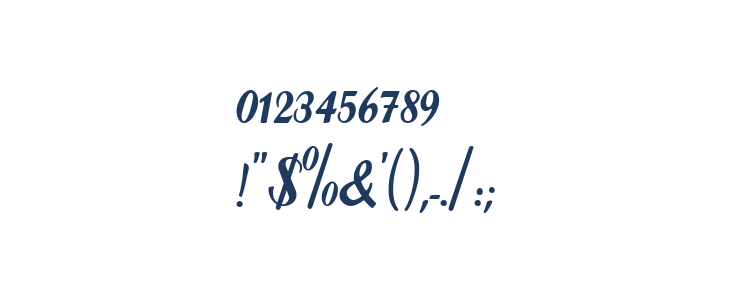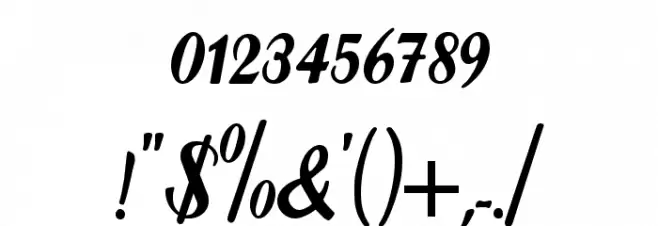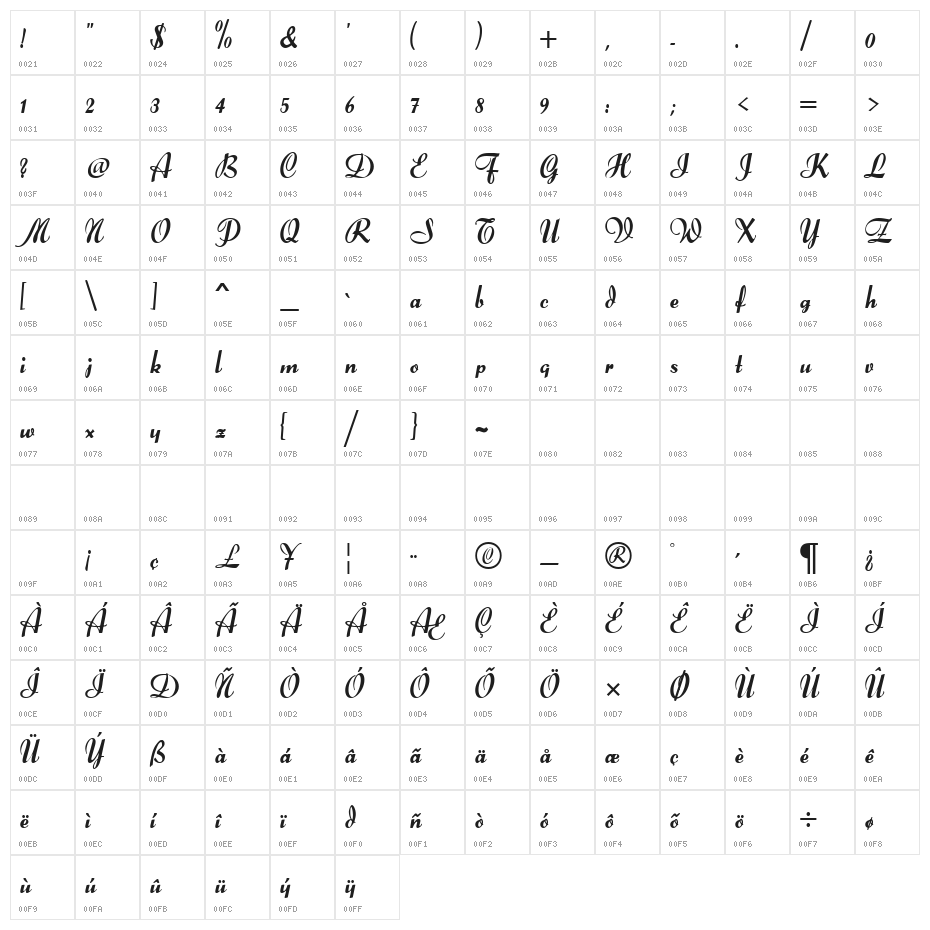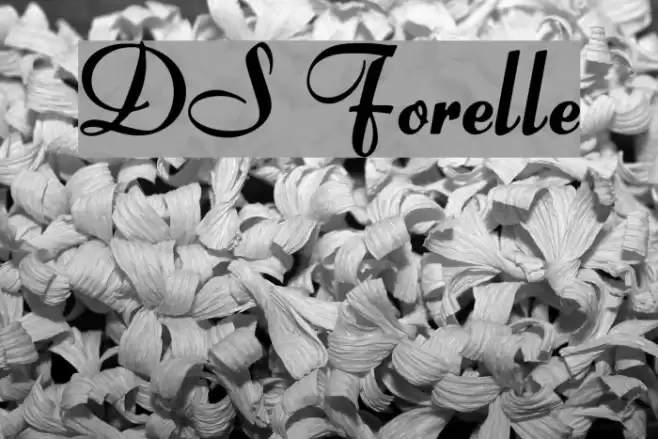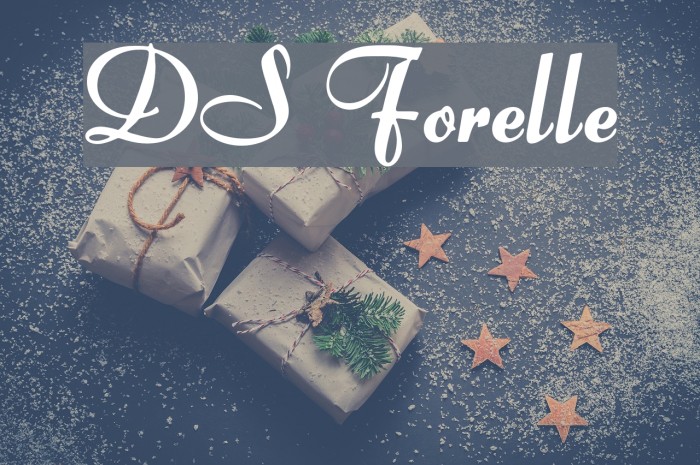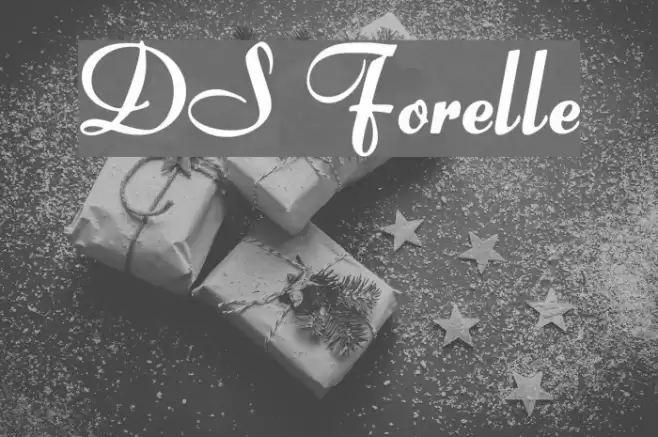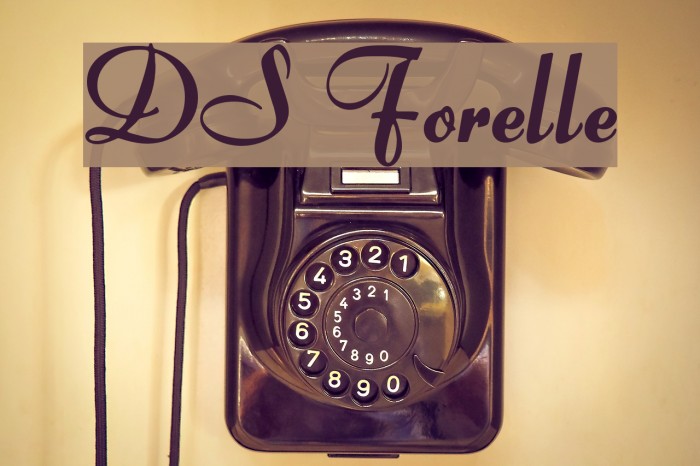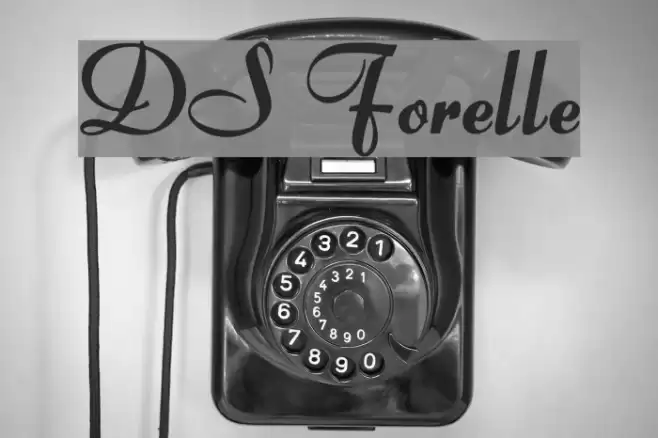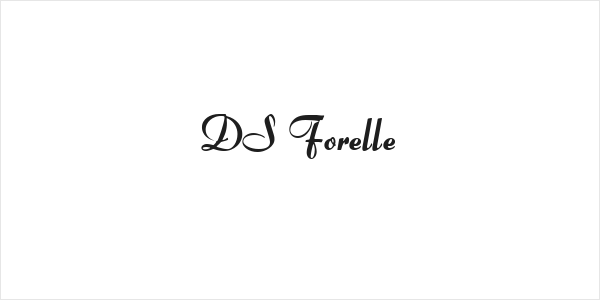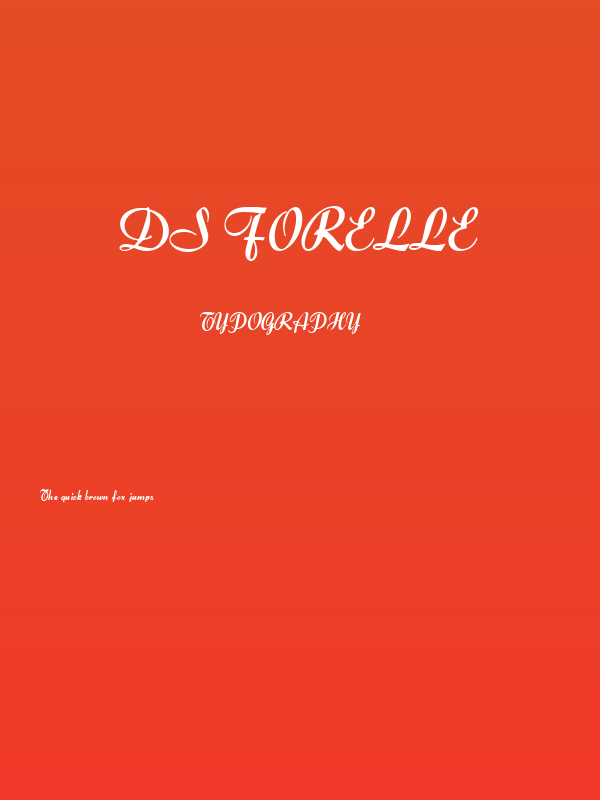
DS Forelle Font
DS Forelle Description
This font features an elegant and flowing script style that exudes sophistication and charm. The uppercase letters are characterized by their sweeping curves and flourishes, giving them a sense of movement and grace. The lowercase letters maintain a consistent style, with smooth, rounded forms that complement the uppercase set. The numerals are designed to match the overall aesthetic, with a slightly playful yet refined appearance. Special characters are thoughtfully integrated, ensuring they blend seamlessly with the rest of the typeface. This font is perfect for projects that require a touch of elegance and a personal feel.
| Overall Style | Elegant, Sophisticated |
| Proposed Projects | Ideal for wedding invitations, elegant branding, personal stationery, and upscale packaging. |